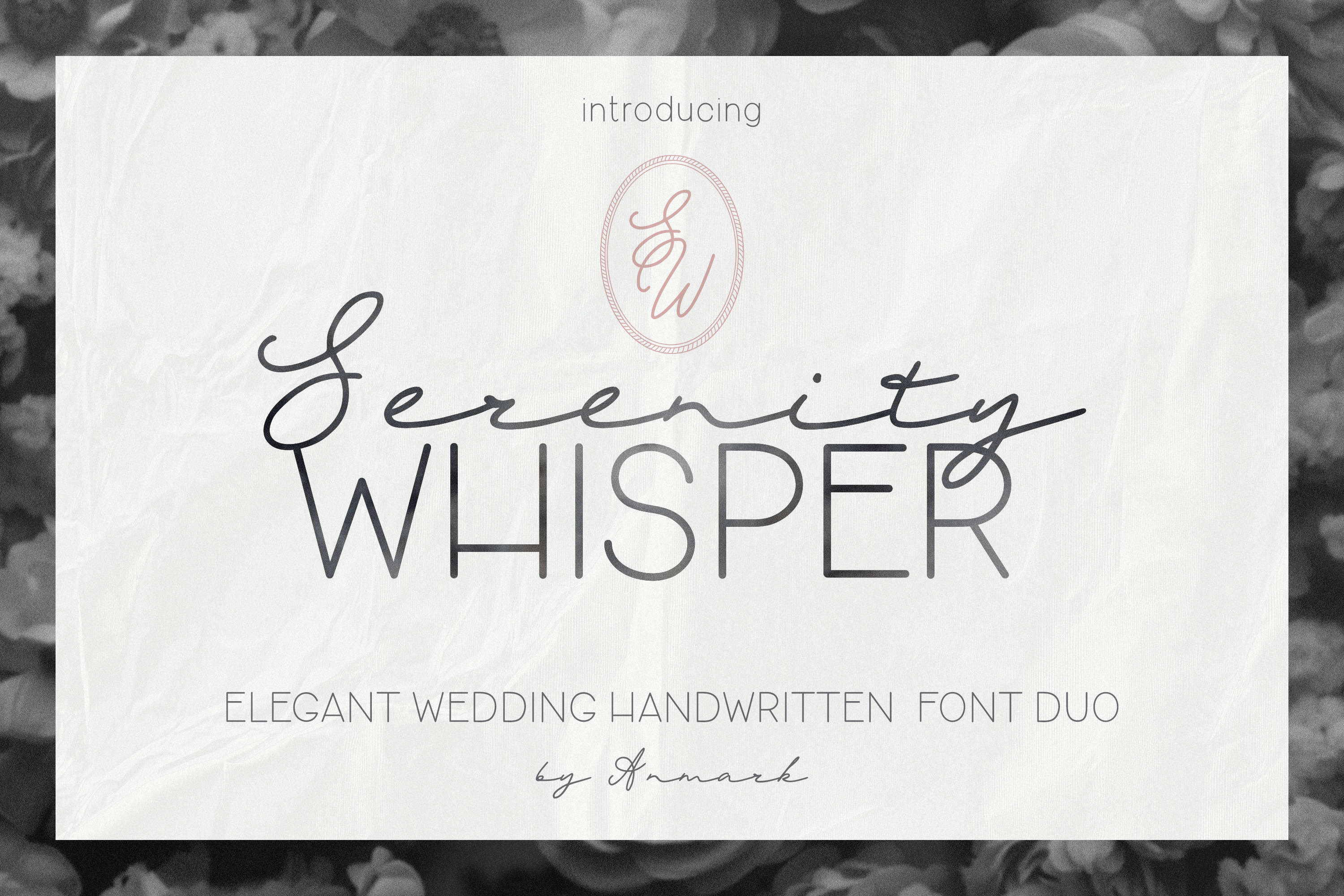
Serenity Whisper Elegant Font DUO
Introducing Serenity Whisper, a beautifully crafted handwritten font duo that combines the elegance of Serenity Whisper Sans Serif and the refined charm of Serenity Whisper Script. This versatile typeface set is designed to elevate your creative projects with its delicate and sophisticated touch.
Perfect for wedding stationery, invitations, logos, and packaging, Serenity Whisper adds a personal flair to any design. Its graceful lines and refined aesthetics make it an excellent choice for branding, social media graphics, greeting cards, and art prints. Whether you're creating a romantic invitation or a chic logo, this font duo will bring a sense of tranquility and elegance to your work.
With robust multilingual support, Serenity Whisper ensures that your message resonates beautifully across different languages, making it a truly global choice for designers. Embrace the serenity and sophistication of Serenity Whisper in your next project!